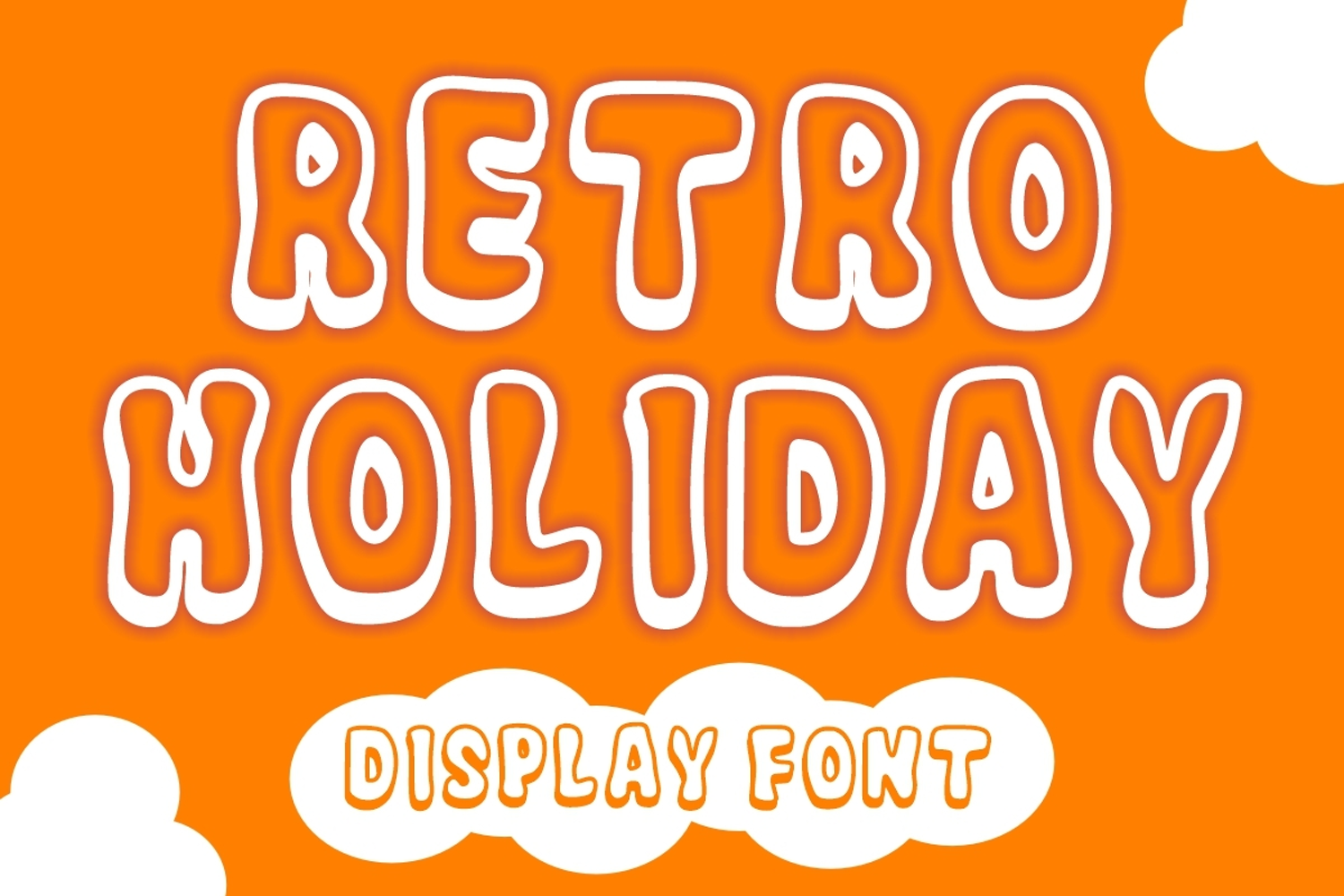
Retro Holiday
Retro Holiday is a fun outline retro, groovy, display font. It features a dynamic effect and a unique charm. It is perfect for crafts, mugs, gifts, headlines, banner events, kids posters, school posters, text effects, templates, logos, or name cards.